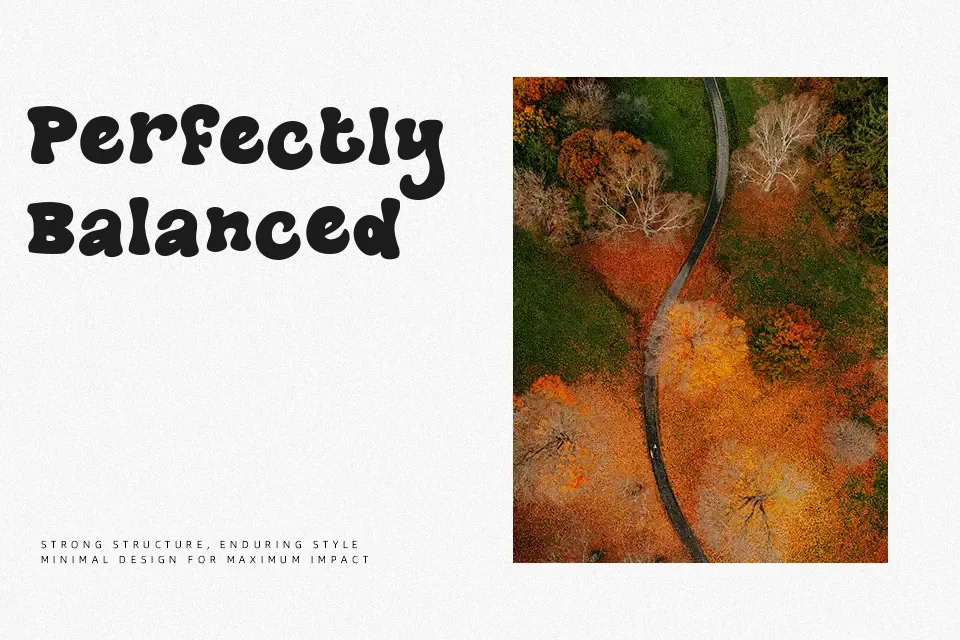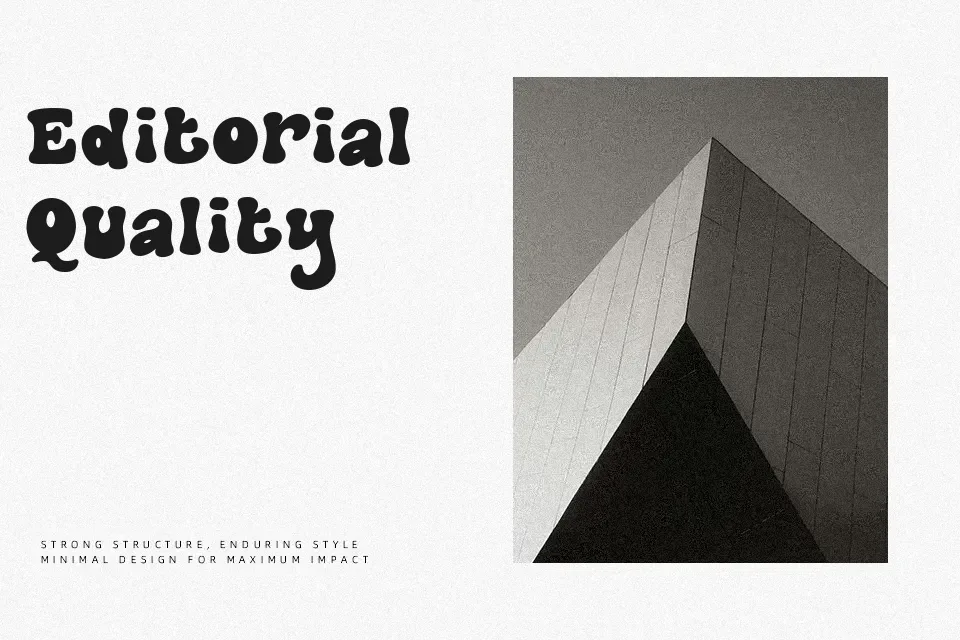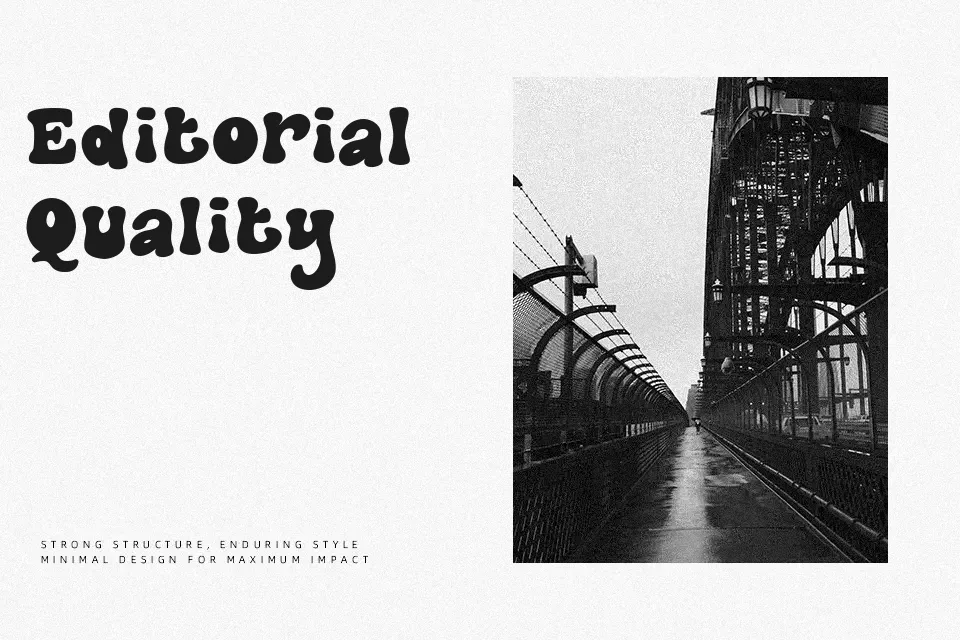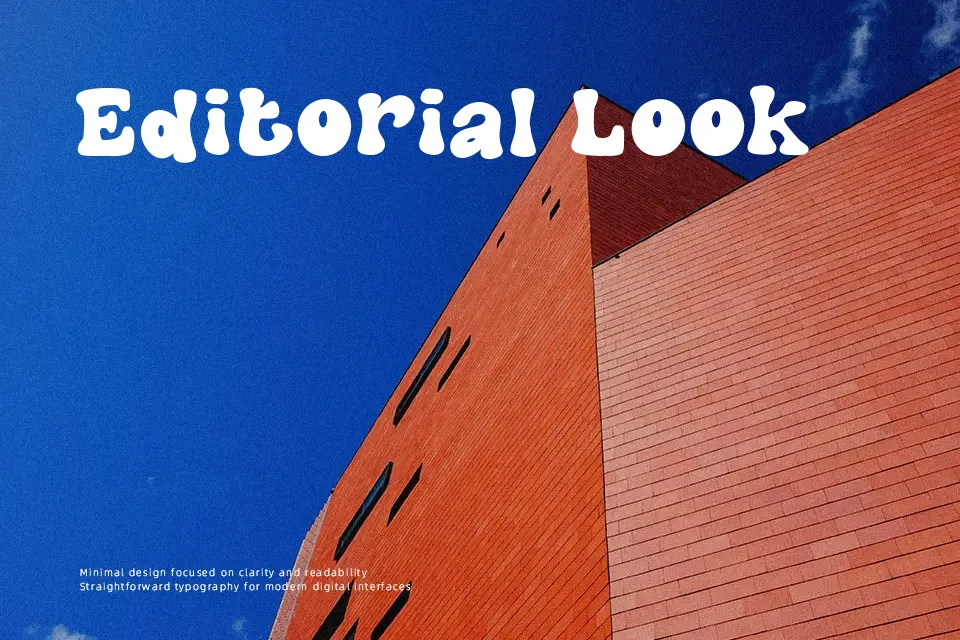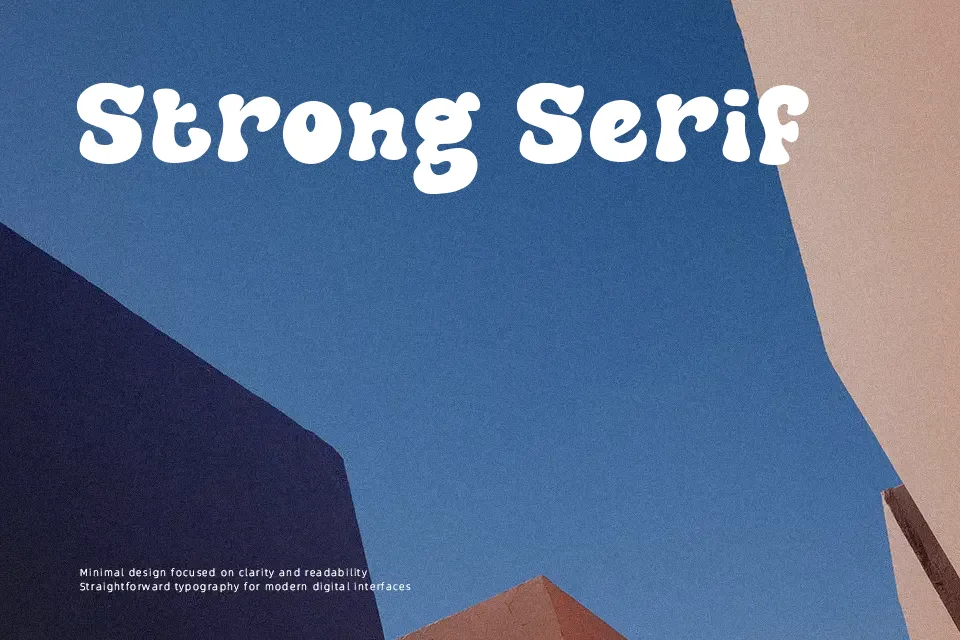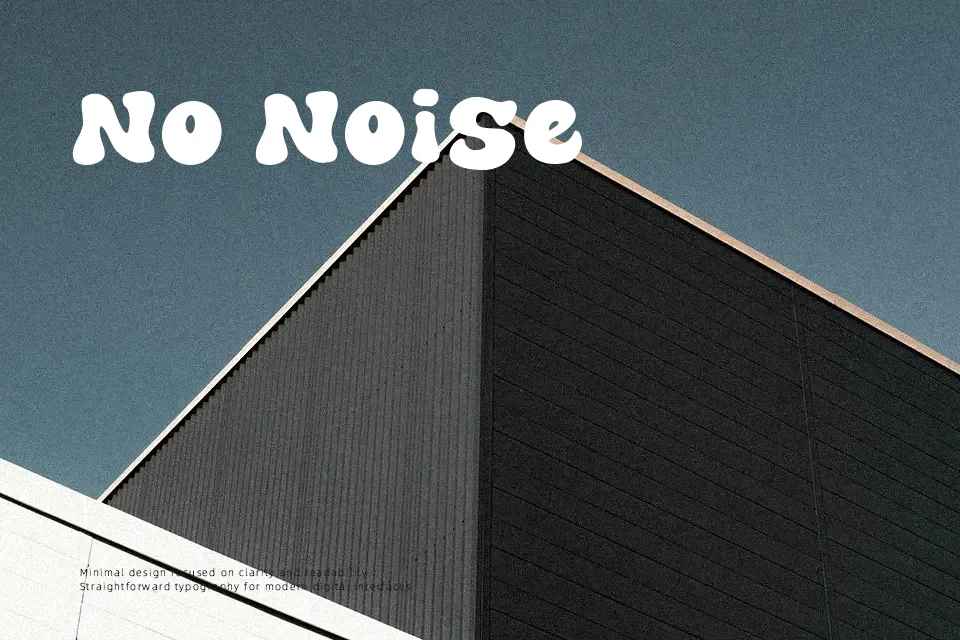
The Meshroom Font
A short product label or poster headline benefits immediately from the playful proportions of The Meshroom, which pairs rounded terminals with inflated, fluid letterforms. The typeface exhibits minimal stroke contrast, thick contours, and tight spacing that together produce a cohesive, punchy rhythm across uppercase and lowercase settings. While these heavy shapes remain legible in large titles, the dense inner counters and tight kerning become less effective at smaller body sizes where counter spaces close down. For prominent display applications, the design delivers immediate retro warmth, though it remains unsuitable for continuous editorial reading.
retro product packaging
apparel graphics
coffee shop menu headers
continuous editorial reading
dense legal documents
corporate spreadsheet tables
Perfect for headline, logo, and packaging, with a bubble and decorative style.